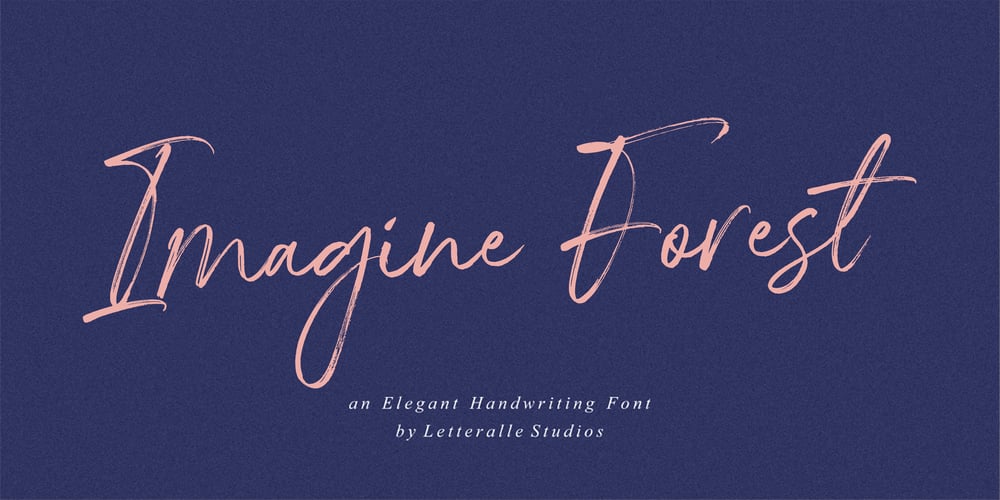
Imagine Forest Font Family was designed by Annas Alam Yahya and published by Letteralle. Imagine Forest contains 2 styles and family package options. Introducing! Imagine Forest Font! a casual and charming brush font. Indigo Forest is very suitable to fill your design needs such as, branding, social media, merch, ads, book title, packaging, etc. Imagine Forest includes 2 fonts :- Imagine Forest: The main font with Uppercase, Lowercase, Number, Punctuation, and also multilingual support.- Imagine Forest Alt: Besides you can access alternative characters from the main font through the opentype feature, you can also install this alternative fonts. Indigo Forest Alt font will give you other options for a character, which of course will add a natural impression.Imagine Forest also has a some of ligatures that will enhance the natural impression.ThatÃs it! Please do let me know what you think, feel free to comment if there are issues or queries.Enjoy the Font,Thank You!